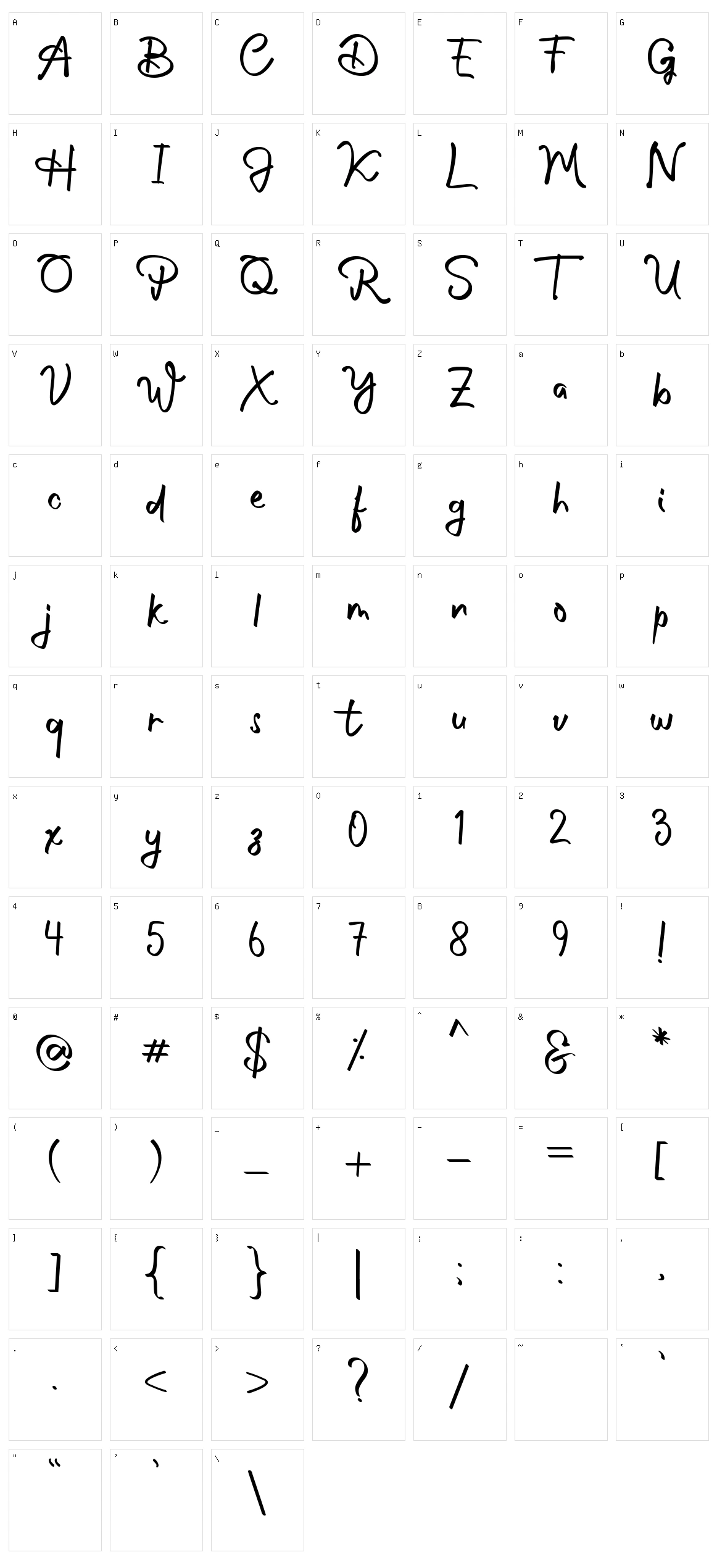
The free font Philosophy is carefully designed by Kwancasakya, showcasing a thoughtful balance of creativity and usability and falls under the Script font style. When you download the ZIP file, it contains only 21.31 KB of font files, making it lightweight and quick to download. Please review the license details below to understand permitted usage and distribution rights. If license information is not available, we recommend using this font for personal projects only or contacting the author directly for commercial usage permissions.